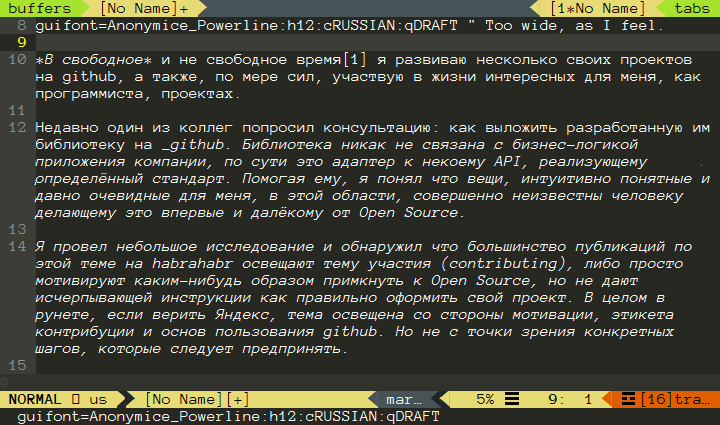
Correctly rendered Powerline Patched fonts with Cyrillic Support on Windows.
Hi folks! I'm studying Vim editor last few weeks. And it's time to solve the issue with Cyrillic fonts because I just can't write my text with whatever else except Vim now)
Since I use Vim Airline we can't use any wanted font. We need special Powerline Patched fonts. But not every one of them supports Cyrillic characters and even if such support is presented Cyrillic characters are showing with distortion especially in oblique style.
Broken Cyrillic text with oblique style
Here I have collected some samples of Powerline fonts with Cyrillic support and fine looks. Hope it will be helpful for someone else) Unfortunately there not too many such fonts(
Fira Mono for Powerline
Anonymice Powerline
DejaVu Sans Mono for Powerline
Source Code Pro for Powerline
Ubuntu Mono derivative Powerlin